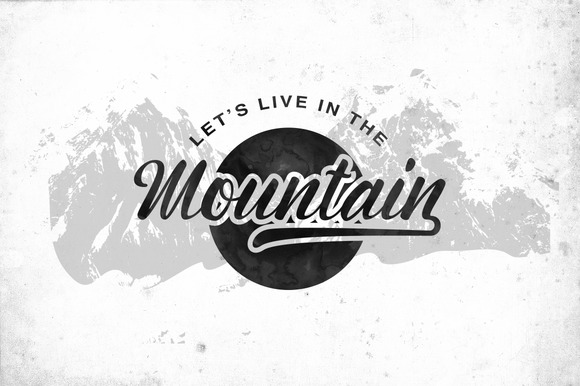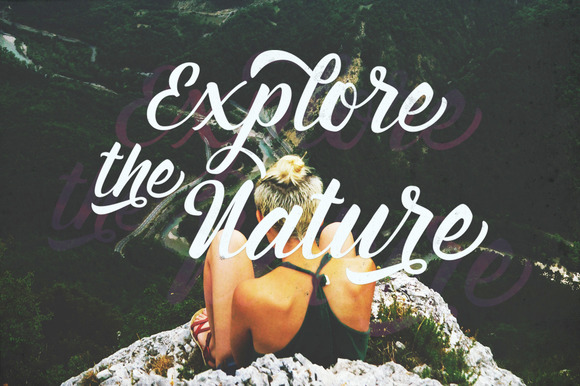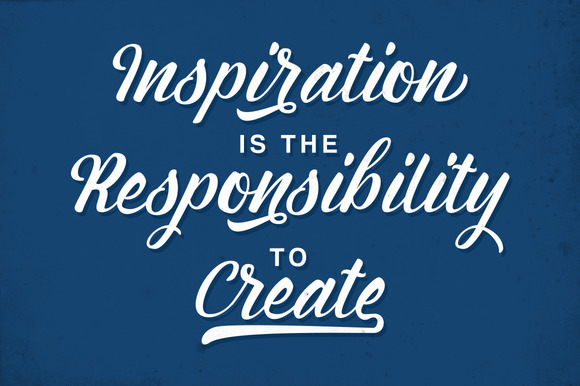
HomeScript FontsMontagne Font Script Fonts Montagne Font FacebookXPinterestWhatsApp Montagne Font Poster 2 Montagne Font Poster 3 Montagne Font Poster 4 About Montagne Font The Montagne Typeface is a beautiful hand Painted script with a natural look. DOWNLOAD ON CREATIVE FABRICAThis font is sold and delivered by Creative Fabrica. Font Canyon may earn a commission if you buy through this link. People also explored Greenhouse Font Go Come Font Valentine Font Retro Mood Font Krosko Font Mug Mockup Lilac Mock Up The Jackle Font Delicko Font Magical Love Font 318 0 TagsMontagne Font Previous articleStefhanie FontNext articleMellanie Typeface Font LEAVE A REPLY Cancel reply Comment: Please enter your comment! Name:* Please enter your name here Email:* You have entered an incorrect email address! Please enter your email address here Website: Save my name, email, and website in this browser for the next time I comment. Personal Use Free Rozalyn Personal Use Free Read more about this font Bollado Personal Use Free Read more about this font Rakesly Personal Use Free Read more about this font Vogue Font Personal Use Free Read more about this font BLOG Free Fonts Risk: Why Free Fonts Can Be Dangerous for Designers Free Fonts Risk: Why Free Fonts Can Be Dangerous for Designers Using free fonts is a common practice in web and graphic design. However, the... Fonts That Capture the Spirit of New York City Transform Your Website: Elevate Your Typography with 7 Best Web Font Generators Free vs Paid Fonts: Why Investing in Premium Fonts Is Worth It